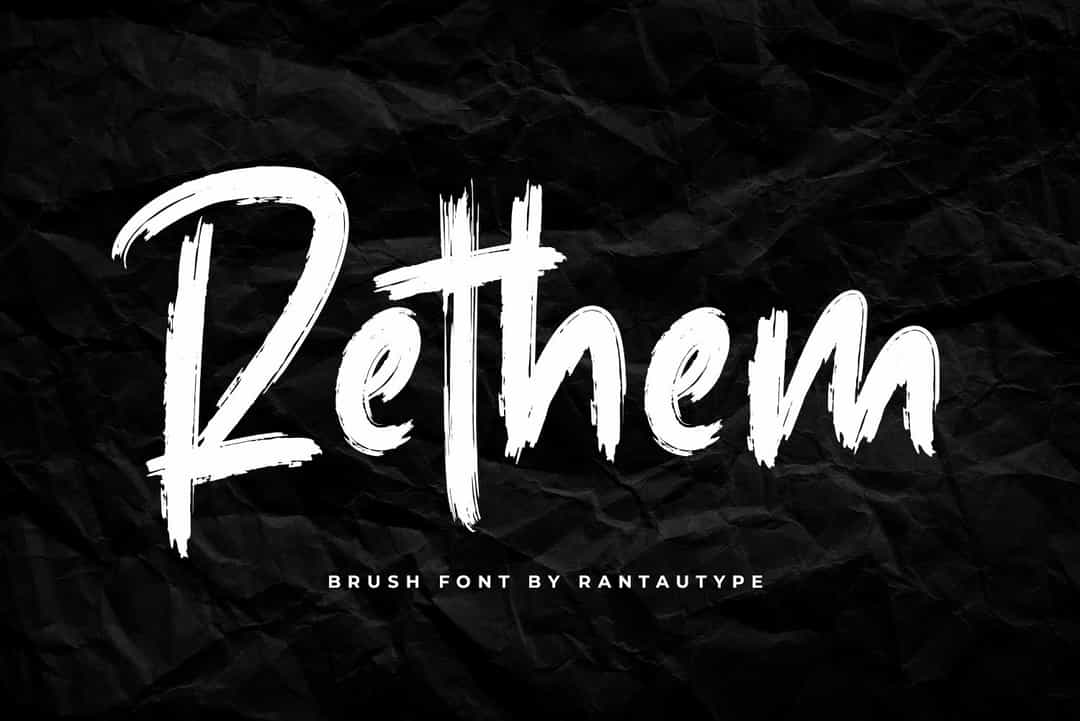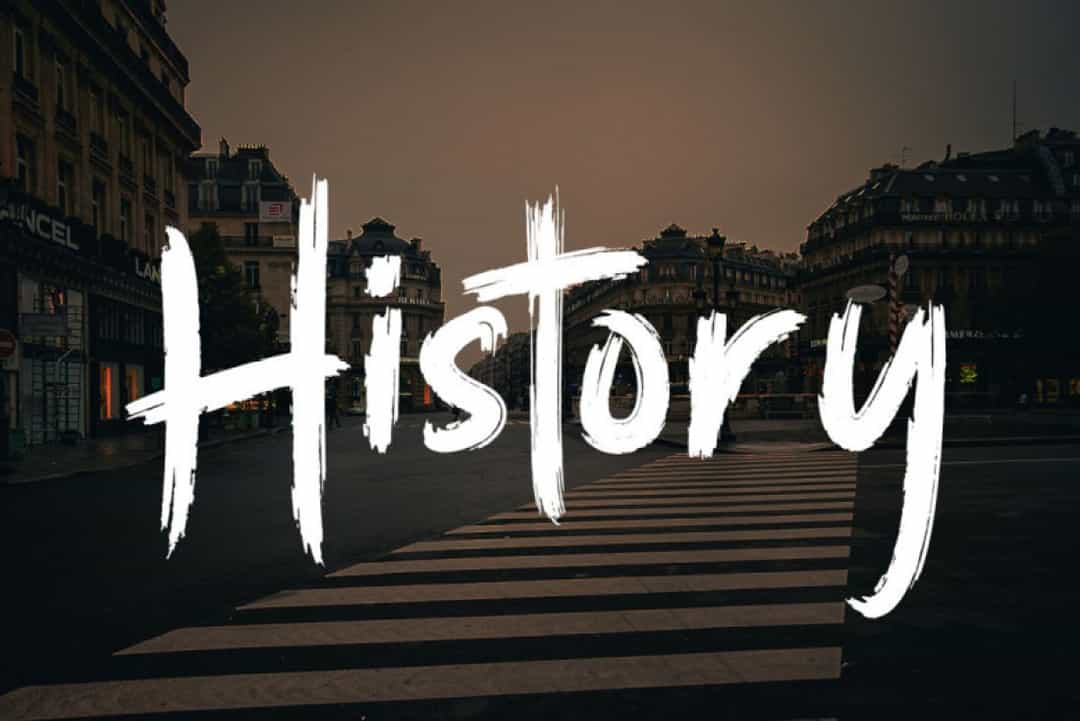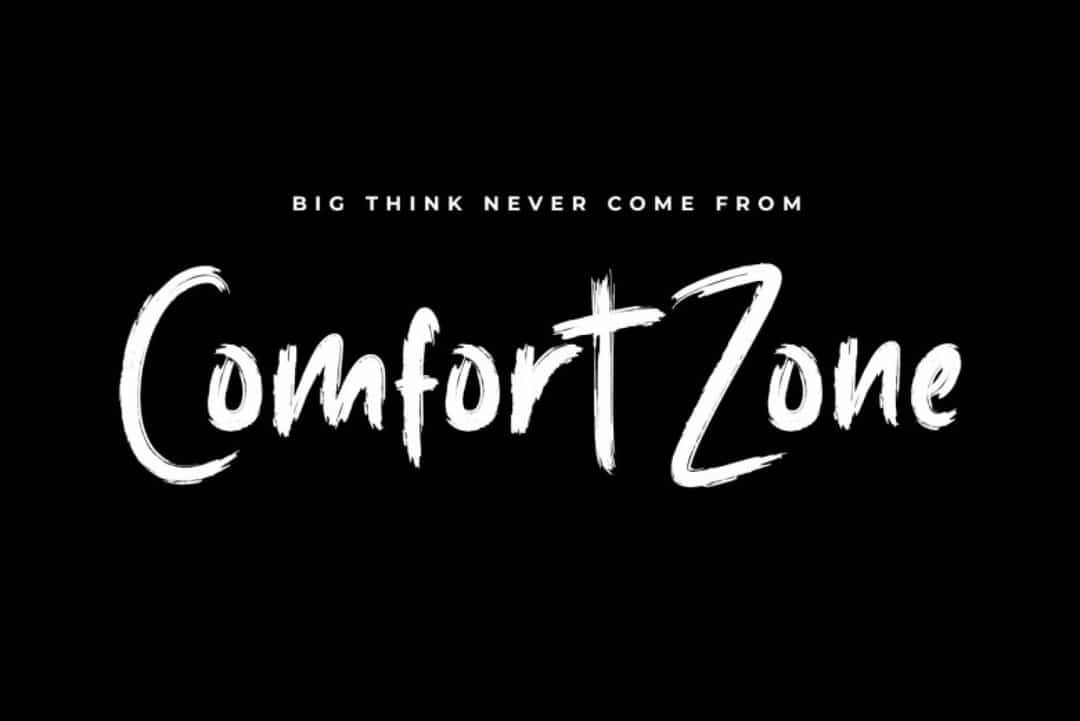
Rethem is an aggressive brush font ideal for packaging designs, logos posters business cards posters covers broadcast books quotes and much more! Its aggressive style can also make an ideal backdrop for packaging design elements and logos posters business cards posters covers broadcast books quotes or much more!